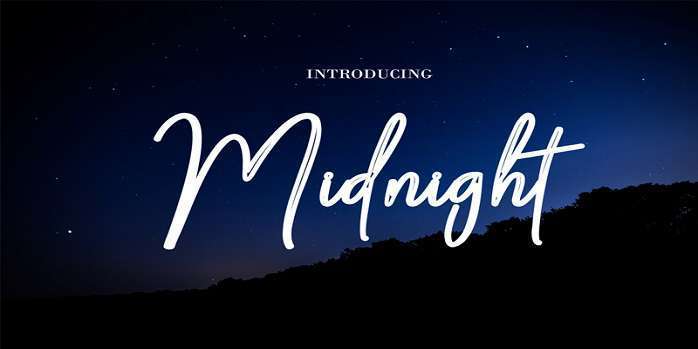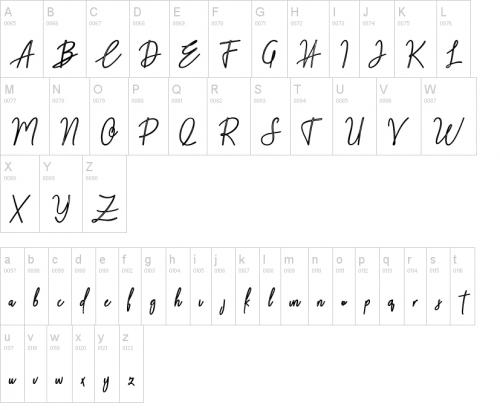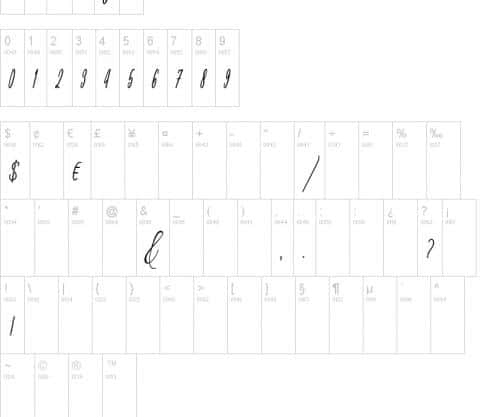
Midnight Script New fresh & modern style with handmade calligraphy, decorative characters and dancing lineage, designed by bba key! So wonderful are invitations like greeting cards, branding material, business cards, quotes, posters, and more !! ZIP files include the following: Midnight .OTF Midnight .TTF